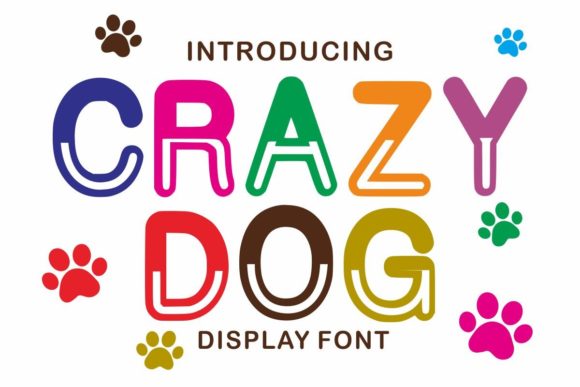
Crazy Dog Font: The Ultimate Display Font for Fun and Creative Projects
Are you looking for a font that can add a playful and friendly touch to your designs? Look no further than the Crazy Dog font! This bold, fun, and cute display font is perfect for a variety of creative projects, from crafts and digital designs to presentations, book covers, and greeting cards.
What is Crazy Dog Font?
Crazy Dog is a display font that is designed to make a statement. Its bold and playful design makes it perfect for headlines, titles, and other display text. The font is easy to read, even at smaller sizes, making it versatile for use in a variety of contexts.
Key Features of Crazy Dog Font
So, what makes Crazy Dog font so special? Here are just a few of its key features:
- Bold and playful design: Crazy Dog font has a fun and energetic vibe that’s perfect for creative projects.
- Easy to read: Despite its bold design, Crazy Dog font is easy to read, even at smaller sizes.
- Friendly vibe: The font has a friendly and approachable feel that’s perfect for designs that need to connect with the audience.
- Versatile: Crazy Dog font can be used for a wide range of creative projects, from crafts and digital designs to presentations and book covers.
Uses for Crazy Dog Font
Crazy Dog font is a versatile font that can be used for a wide range of creative projects. Here are just a few ideas to get you started:
Crafts
Crazy Dog font is perfect for craft projects, such as scrapbooking, card making, and DIY signs. Its bold and playful design adds a fun touch to any craft project.
Digital Designs
Crazy Dog font is also great for digital designs, such as social media graphics, blog posts, and website headers. Its friendly vibe and easy-to-read design make it perfect for digital designs that need to connect with the audience.
Presentations
Crazy Dog font can add a playful touch to presentations, making them more engaging and fun to watch. Its bold design ensures that your message will stand out, even from a distance.
Book Covers
Crazy Dog font can be used to create eye-catching book covers that will grab the attention of potential readers. Its friendly vibe and playful design make it perfect for fiction books, children’s books, and other titles that need to appeal to a wide audience.
Greeting Cards
Crazy Dog font is also great for greeting cards, adding a fun and playful touch to any occasion. Its easy-to-read design ensures that your message will be clear, even at smaller sizes.
Why Choose Crazy Dog Font?
So, why should you choose Crazy Dog font for your next project? Here are just a few reasons:
- Unique design: Crazy Dog font has a unique and playful design that will set your project apart from the crowd.
- Easy to use: The font is easy to read and use, making it perfect for designers of all skill levels.
- Versatile: Crazy Dog font can be used for a wide range of creative projects, making it a great addition to any design library.
Tips for Using Crazy Dog Font
Here are a few tips for using Crazy Dog font in your next project:
- Use it for headlines: Crazy Dog font is perfect for headlines and titles, where its bold and playful design can really shine.
- Pair it with other fonts: Crazy Dog font can be paired with other fonts to create a unique and interesting design.
- Experiment with colors: Crazy Dog font looks great in a variety of colors, so don’t be afraid to experiment and find the perfect hue for your project.
Crazy Dog font is a bold, fun, and cute display font that’s perfect for creative projects. Its easy-to-read design, friendly vibe, and versatile nature make it a great addition to any design library. Whether you’re using it for crafts, digital designs, presentations, book covers, or greeting cards, Crazy Dog font is the right choice. So why not give it a try and see how it can add a playful touch to your next project?